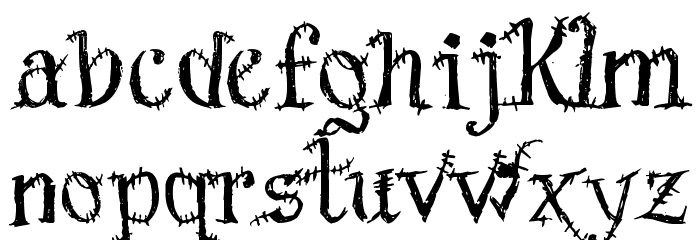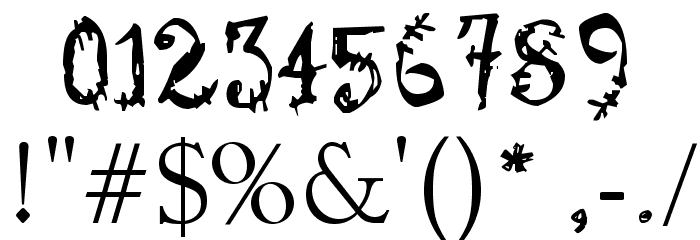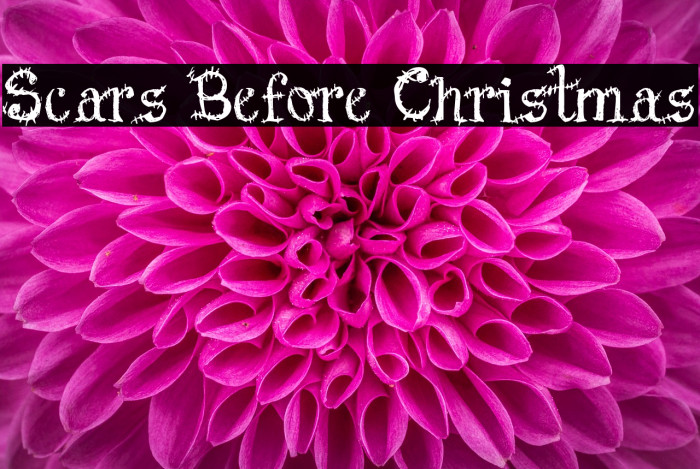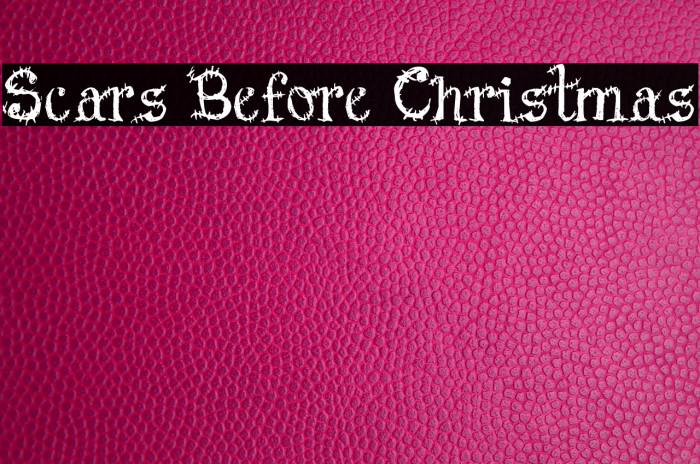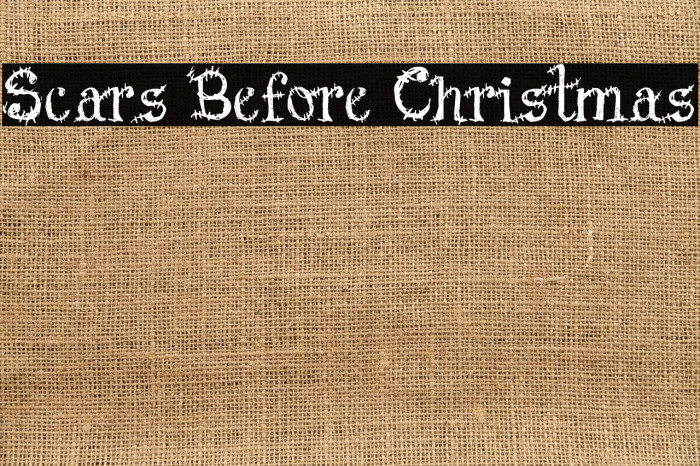
Scars Before Christmas Font
This font features a distinctive, edgy design with characters that appear to be wrapped in barbed wire, giving it a rugged and somewhat chaotic appearance. The letters are bold and jagged, with sharp edges and irregular shapes that create a sense of movement and tension. The uppercase and lowercase letters maintain a consistent style, while the numbers and special characters follow the same thematic elements. This font is highly decorative and stands out with its unique, almost rebellious aesthetic.
An edgy, barbed wire-themed decorative font with bold, jagged characters.
- Font: Scars Before Christmas
- Proposed Projects: Ideal for Halloween-themed designs, edgy posters, album covers, or any project requiring a bold, unconventional look.
- Use Case: Headlines, Posters, Logos